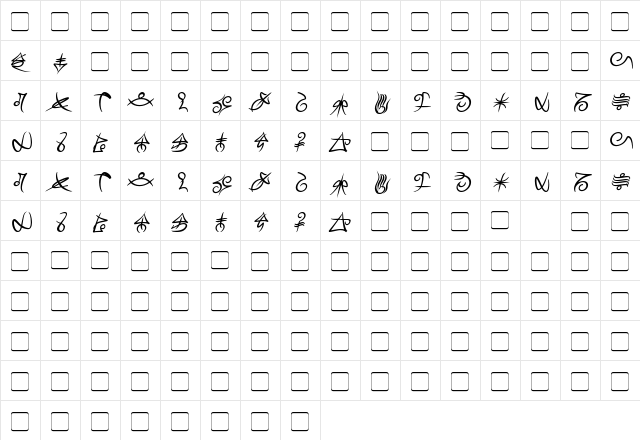
Mage Script Bold Italic
| Foundry | Neale Davidson |
| Designer | Neale Davidson |
Design Context for Mage Script Typeface
Mage Script flows with the natural rhythm of handwritten lettering, making it ideal for designs that call for warmth and personal expression. Its bold stroke weight gives it real presence on the page.
Font Pairing: Combine Mage Script with a simple geometric sans for maximum contrast — the tension between flowing curves and clean structure is a classic typographic pairing.
Pro Tip: Use Mage Script for short runs of text — names, titles, or taglines. Extended body copy in script faces tires the eye quickly.